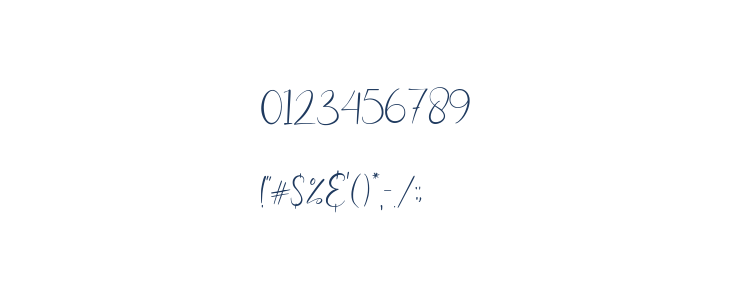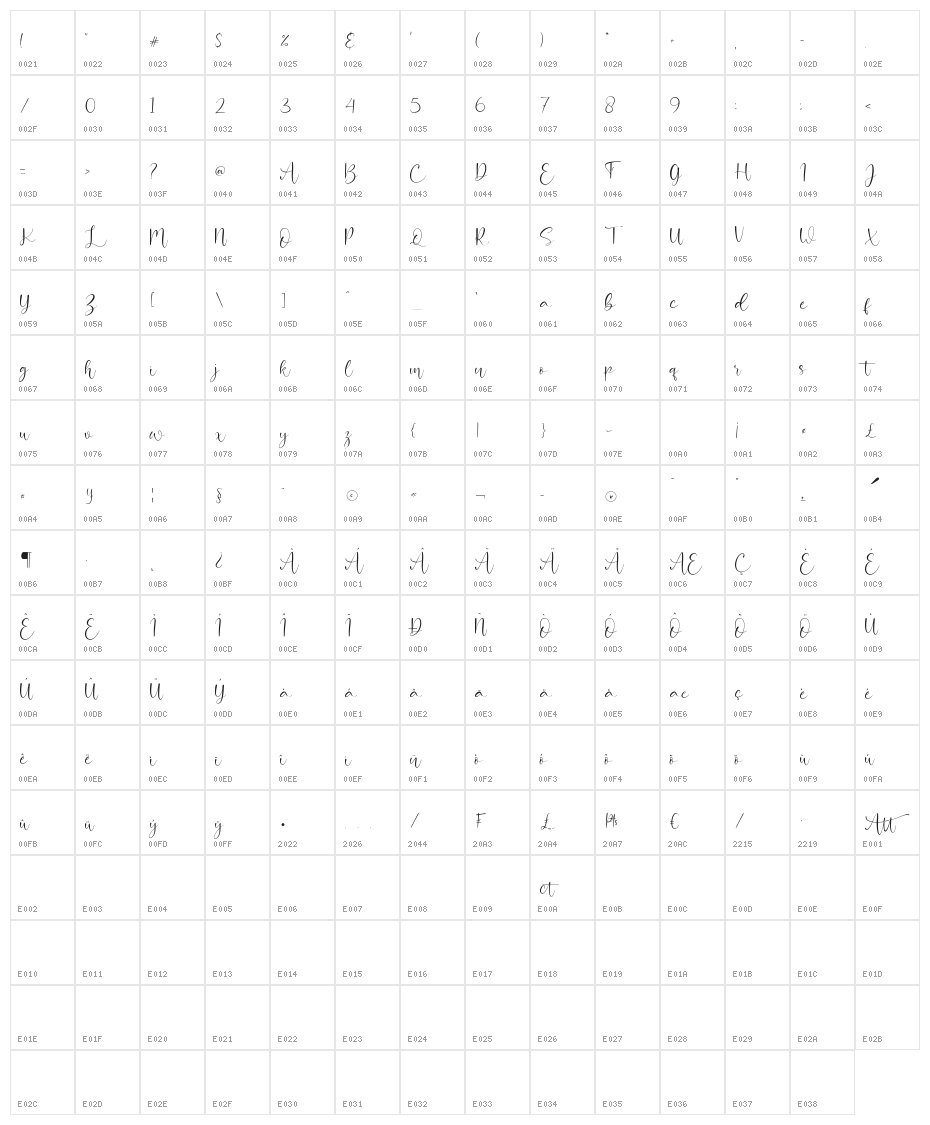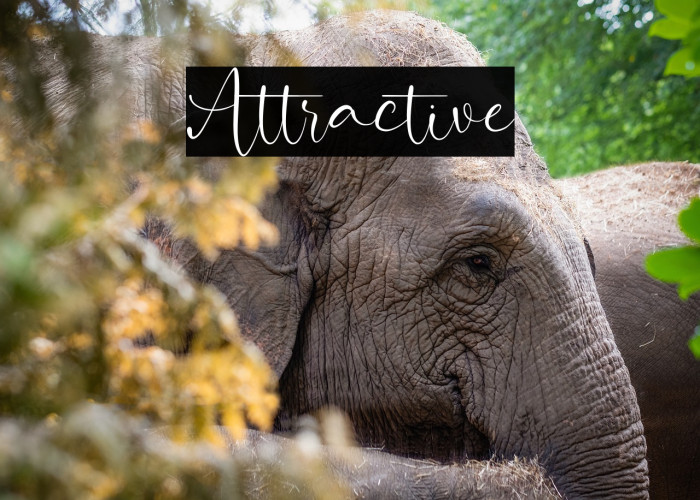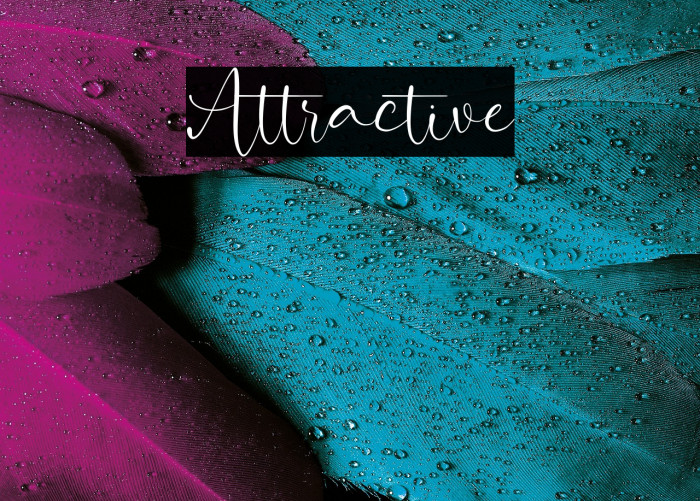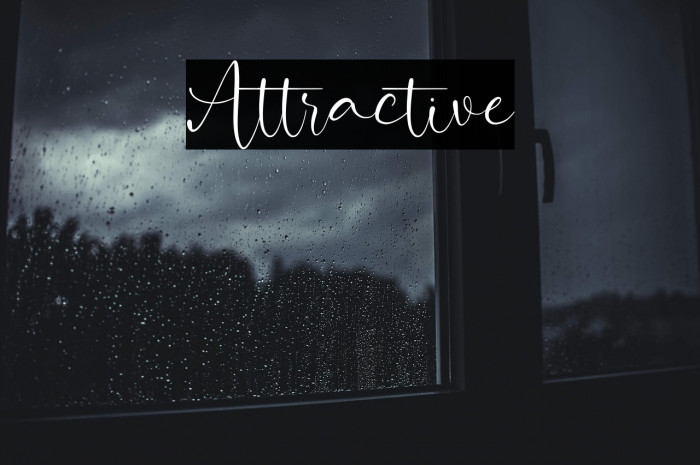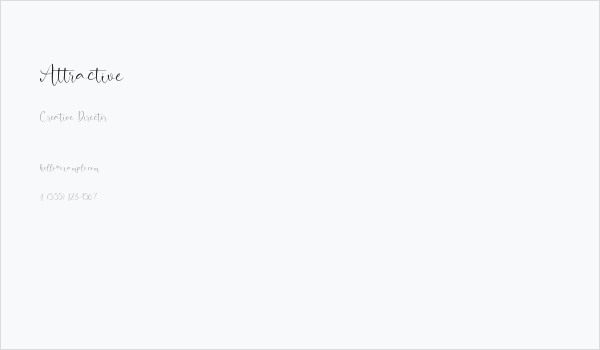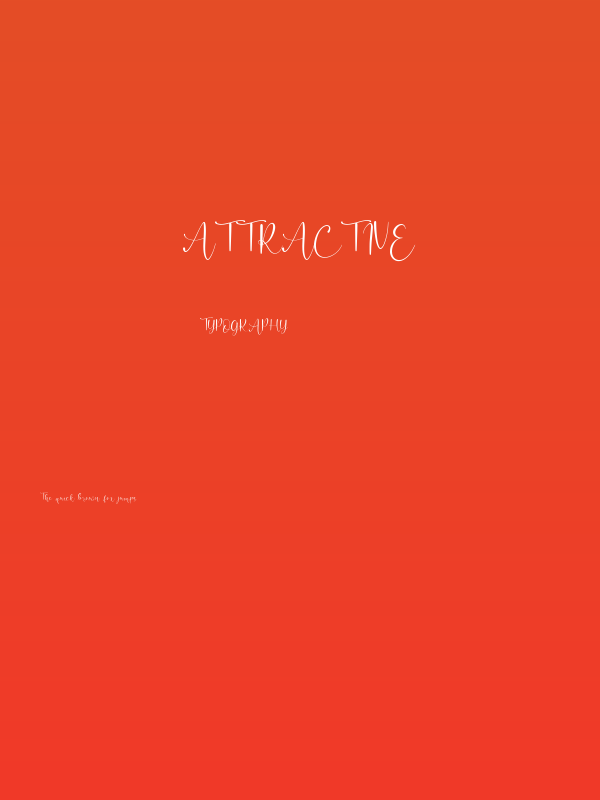
Attractive Font
Attractive Description
This elegant script font features a flowing, cursive style with delicate, sweeping strokes that convey a sense of grace and sophistication. The uppercase letters are characterized by their tall, looping ascenders and descenders, while the lowercase letters maintain a consistent, fluid motion. The numerals are designed with a similar flair, ensuring a cohesive look across all characters. Special characters are thoughtfully integrated, maintaining the font's overall aesthetic. This font is perfect for projects that require a touch of elegance and charm.
| Proposed Projects | Ideal for wedding invitations, elegant branding, greeting cards, and upscale packaging. |